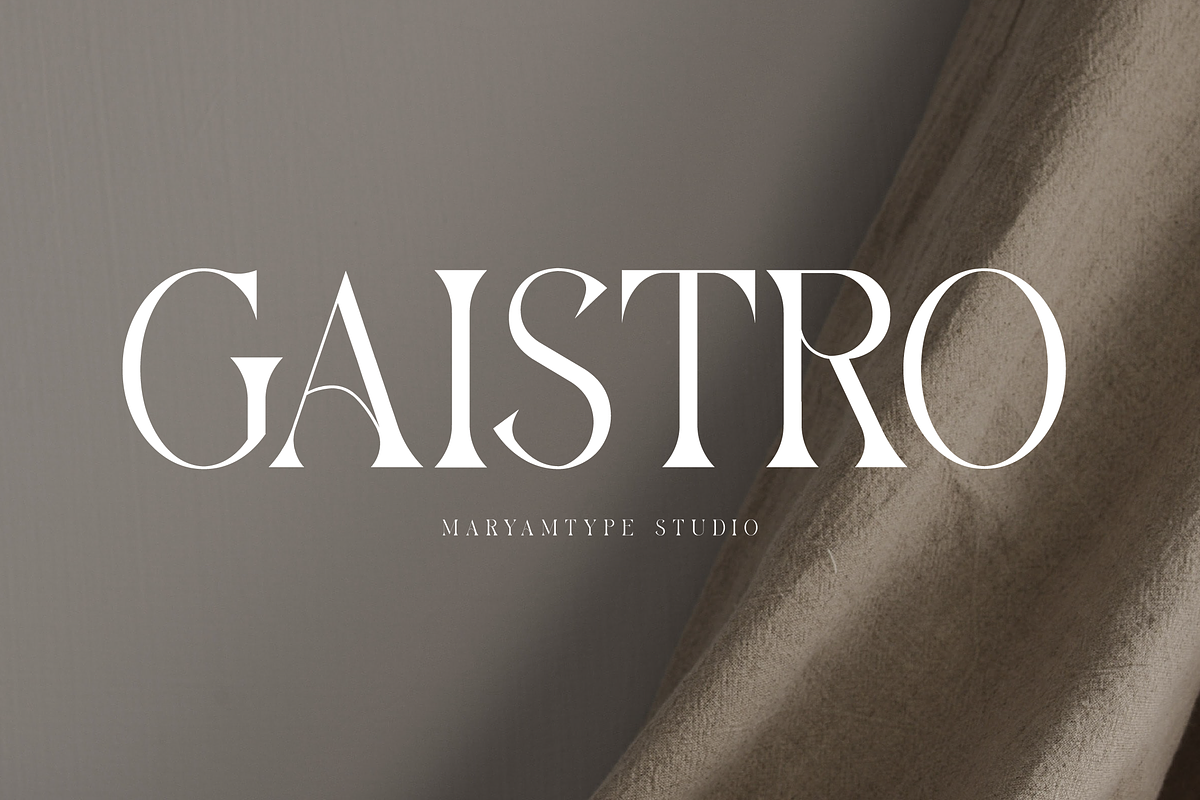
Gaistro Display Font Free Download
Gaistro Display Font Free Download is a bold, experimental typeface designed to make a strong visual impact. With its unique letterforms, sharp angles, and futuristic flair, this display font is perfect for posters, branding, fashion editorials, album covers, and creative projects that demand attention and originality.
Striking the perfect balance between edgy and stylish, Gaistro Display Font Free Download is ideal for designers looking to break away from the ordinary and bring a high-concept, modern aesthetic to their work. Whether you're crafting a high-fashion look or a tech-forward design, this font adds instant attitude and intrigue.